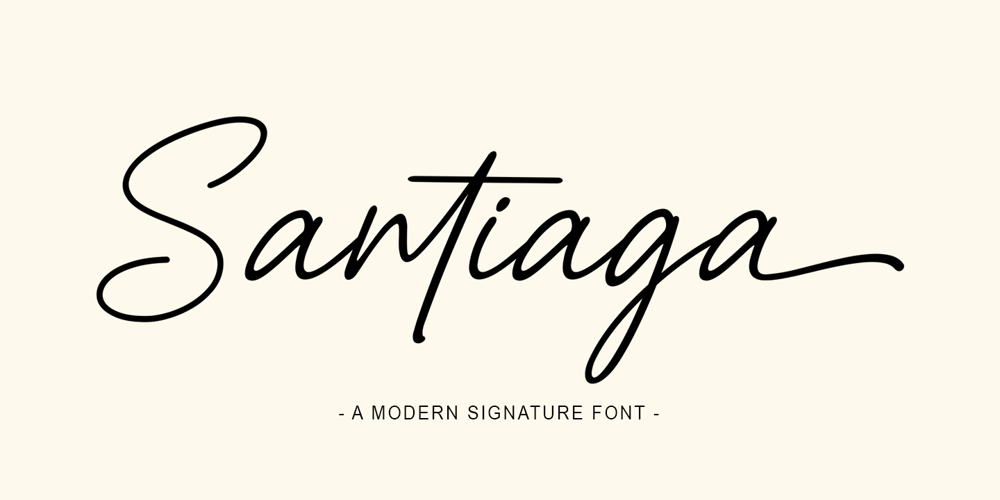
Santiaga
Santiaga font
Santiaga Font Family was designed by Mu Fazzal and published by Bosstypestudio. Santiaga contains 1 styles and family package options. Santiaga – Modern & Signature Script Perfect, Font It includes a full set of upper and lower case letters, multilingual symbols, numbers, punctuation marks and 25 ligatures. This font has a smooth ballpoint pen texture. It has a lowercase start and end ligature!This font is PUA coded which means you can easily access all the glyphs full of signatures! It also features many special features including glyphs and alternate ligatures. font designs made for various vector designs, printing such as digital wedding blogs, online shops, social media, while printing can be used in the field of clothing products, accessories, bags, pins, logos, business cards, watermarks and many others…so it can make your product look cute and attractive, and also Multilingual support!!!If you have any other questions, feel free to drop me a message :)happy designing :),